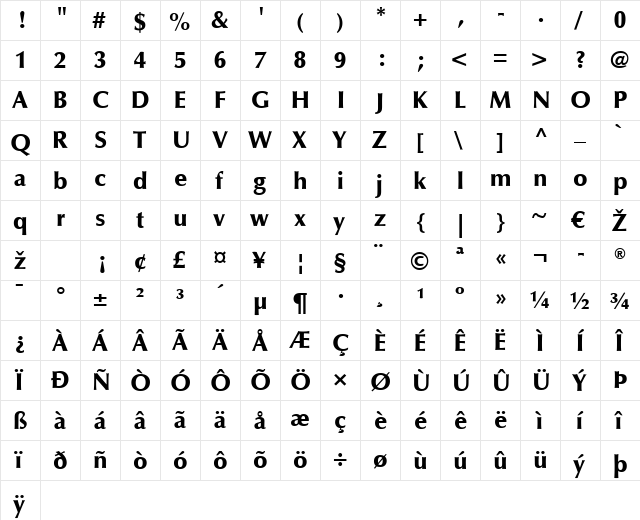
Optima LT Medium Bold
Design Context for Optima LT Medium Typeface
Optima LT Medium offers clean, dependable letterforms without strong stylistic allegiance, making it a practical choice for designers who need flexibility. The heavy weight commands attention and anchors typographic hierarchies.
Pro Tip: Use Optima LT Medium in both headline and body roles to test its range before committing to a single application.